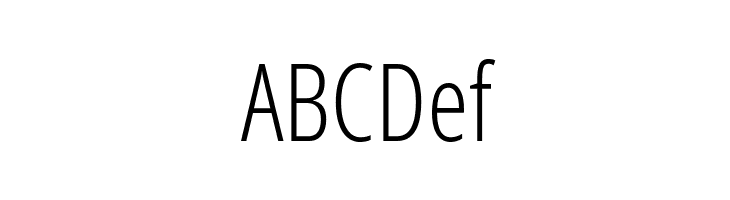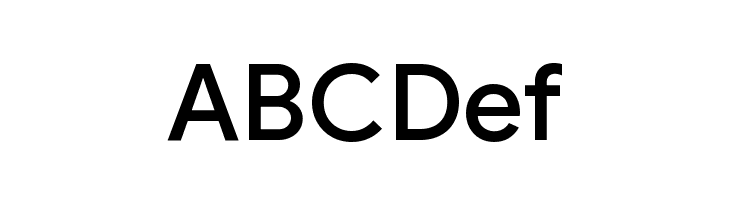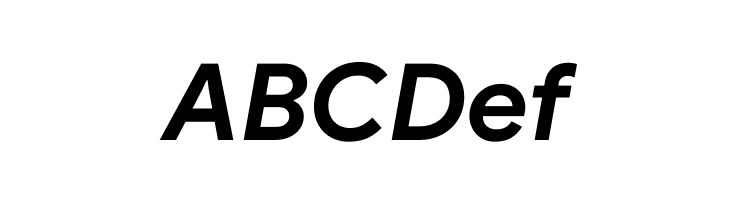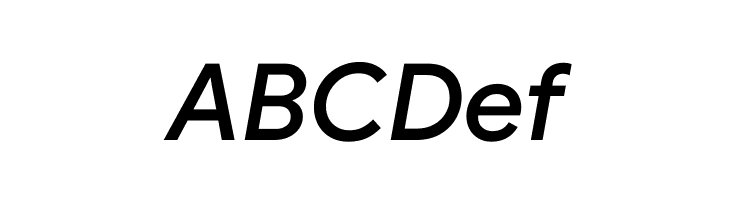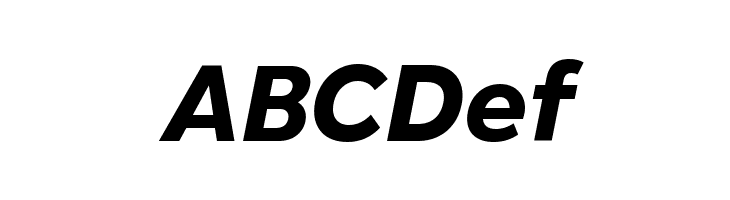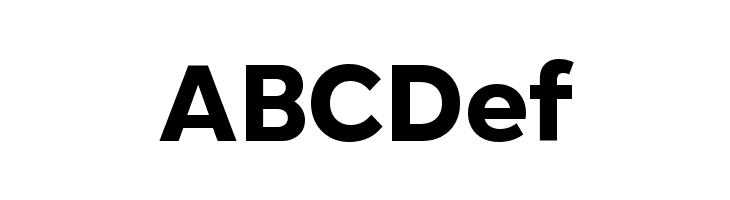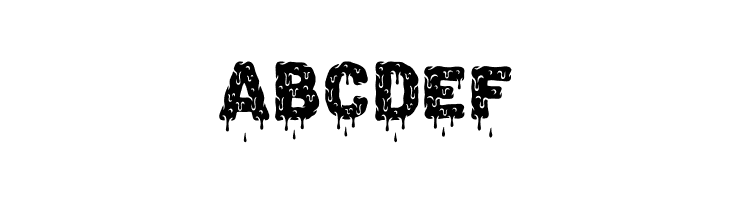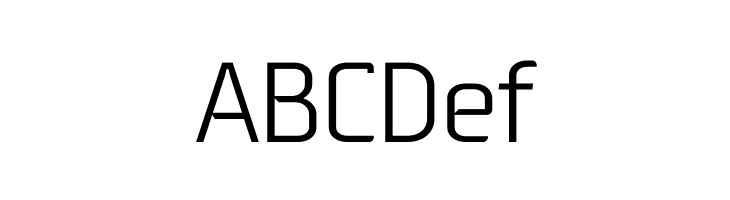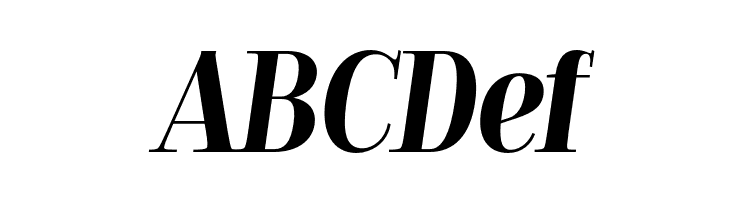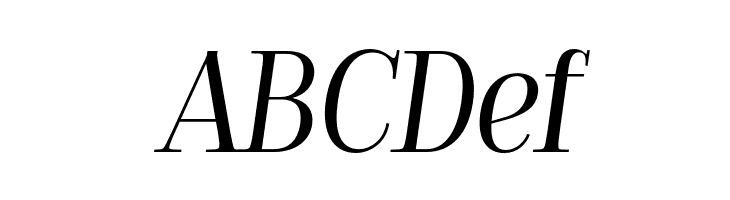
• GarineldoNo01
• GarineldoNo02
An elegant and sophisticated font with decorative swashes and a refined appearance.
• GD_Enochian
A mystical and decorative font with intricate curves and sharp angles.
• GEABOLG
A bold, textured font with a vintage, handcrafted feel.
• Generations Plain
• Geo 957 Normal
• GepesteV
A modern, geometric font with clean lines and a structured appearance.
• Germano-Bold
A bold, modern sans-serif font with strong lines and excellent readability.
• Germano-BoldOblique
A bold, oblique font with a modern and dynamic style.
• Germano-Italic
A sleek, modern italic font with clean lines and smooth curves.
• Germano-Regular
A clean, modern sans-serif font with consistent stroke width and excellent readability.
• GFS Neohellenic Italic
A modern italic font with elegant curves and a dynamic slant.
• GFSDidot-Bold
A classic serif font with high contrast and elegant design.
• GFSDidot-BoldItalic
An elegant, high-contrast serif font with italic styling.
• GFSDidot-Italic
An elegant serif font with a classic italic style and high contrast strokes.
• Glaz Krak solid
• Gloober
A bold, dripping font with a playful, spooky aesthetic.
• Gogh Extra Bold